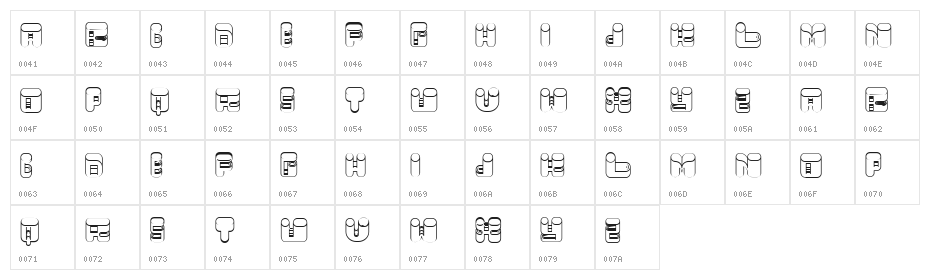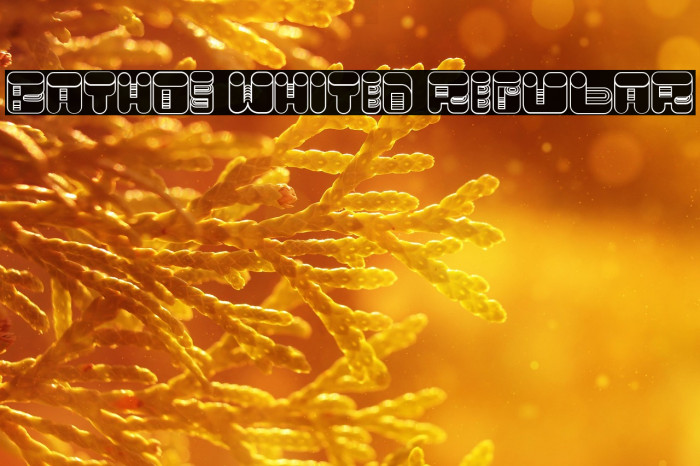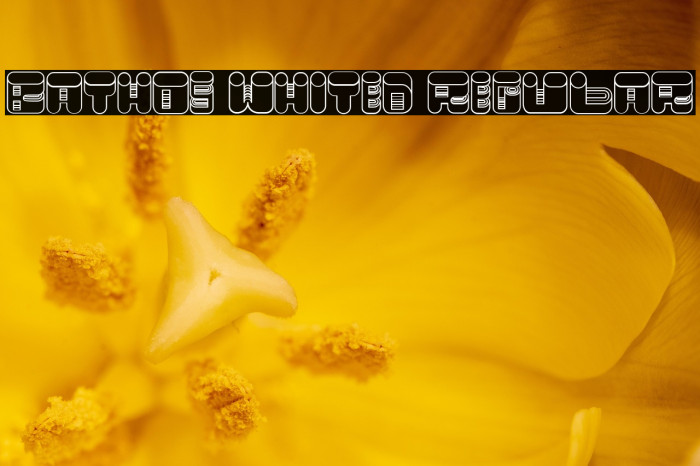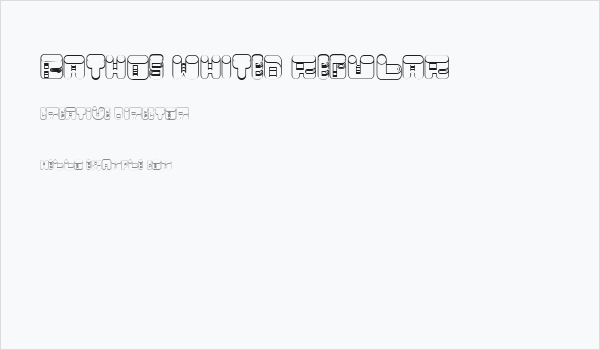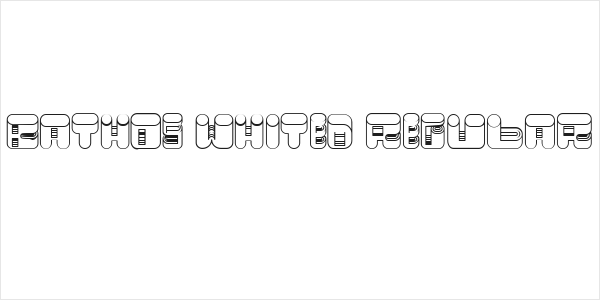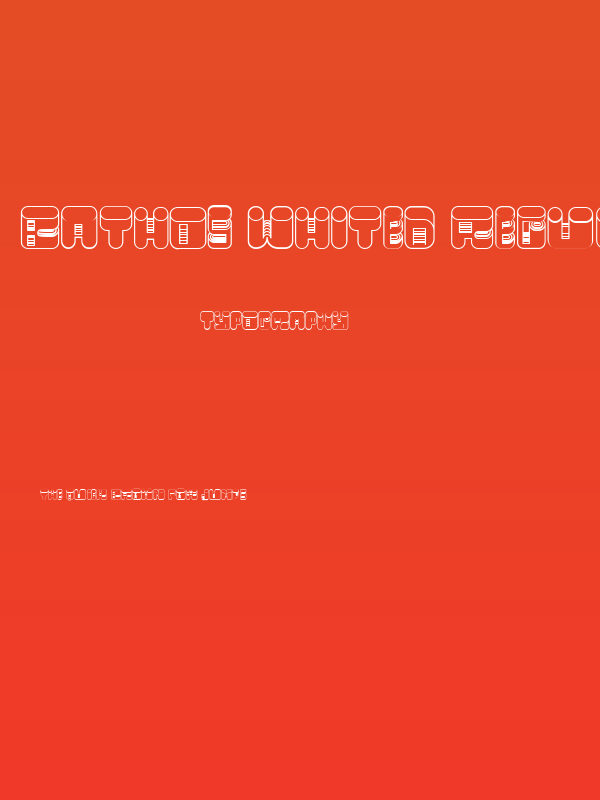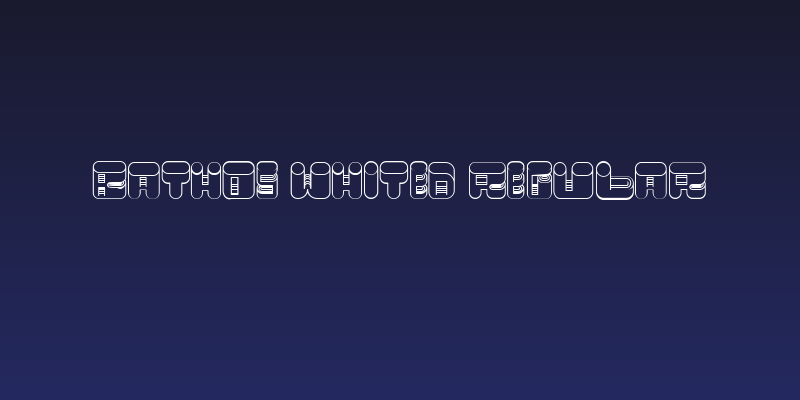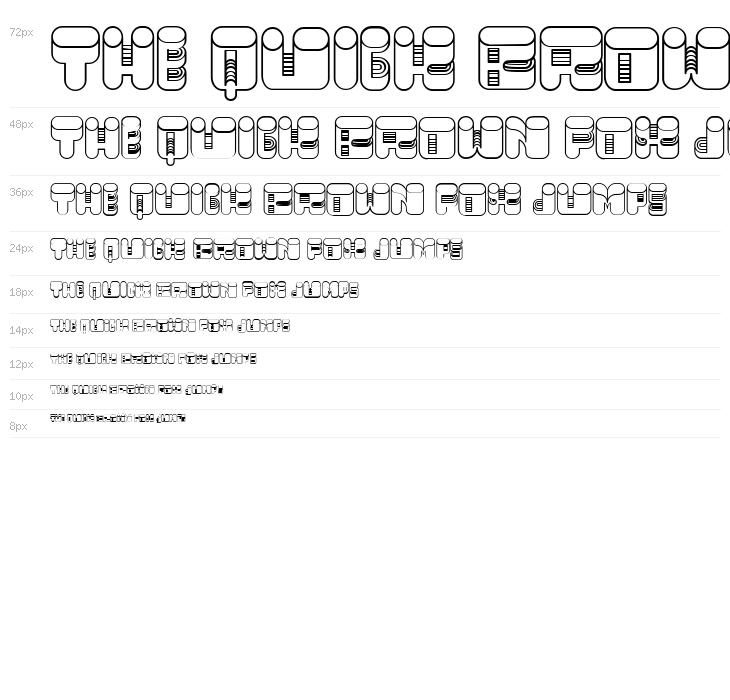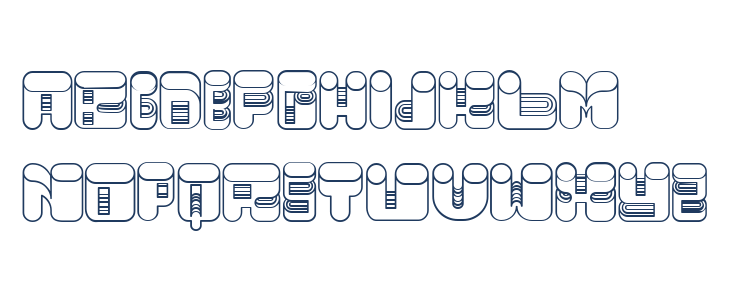
This font features a unique and playful design with a three-dimensional, tubular appearance. Each character is outlined with a bold, black stroke, giving it a distinct and eye-catching look. The letters are rounded and have a futuristic, almost robotic feel, with some incorporating subtle line patterns within the strokes. The overall style is decorative and modern, making it suitable for creative and unconventional projects. The font's design emphasizes individuality and creativity, making it perfect for projects that require a standout, artistic touch.
| Proposed Projects | Ideal for posters, album covers, video game graphics, and any project needing a bold, artistic flair. |